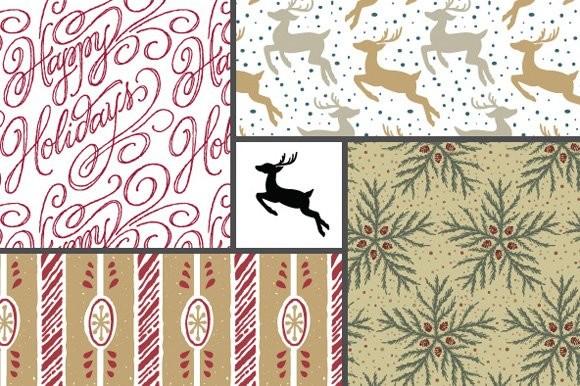
Winter Wallflowers Font Description
Winter Wallflowers — 25 unique hand drawn wallpaper tiles and 61 accompanying icons. These patterns and icons are presented as a convenient, easy to use font.
Wallflowers are very easy to use, for borders or wallpaper, simply type the same letter consecutively (for example: aaaa or bbbb, et cetera) and voila! The seamless pattern will emerge. Resize the text box to go from a rectangle or square – as this is a font, there is no need to manually seam up the tiles, it’s done automatically! Refer to the Users Guide included with your download for further instruction and to view the patterns included. Also included in your download: colored EPS files of all 25 pattern tiles!